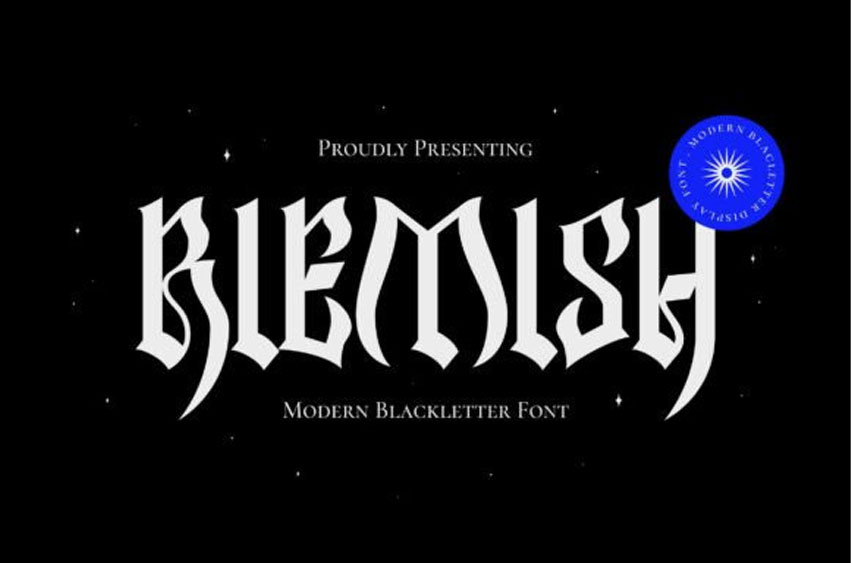
Riemish Font is a modern blackletter font that blends the timeless elegance of traditional gothic script with a contemporary edge. Tall, condensed letterforms, razor-edged terminals, and bold vertical contrast give it an unmistakably modern, editorial punch while keeping that gothic heritage intact.
Ideal for designers looking to evoke strength, elegance, and artistry in one typeface, like a poster, streetwear labels, album covers, barbershops, skate brands, concerts, festivals, nightlife, badges, and signage where you want drama and edge.
Riemish Font Preview